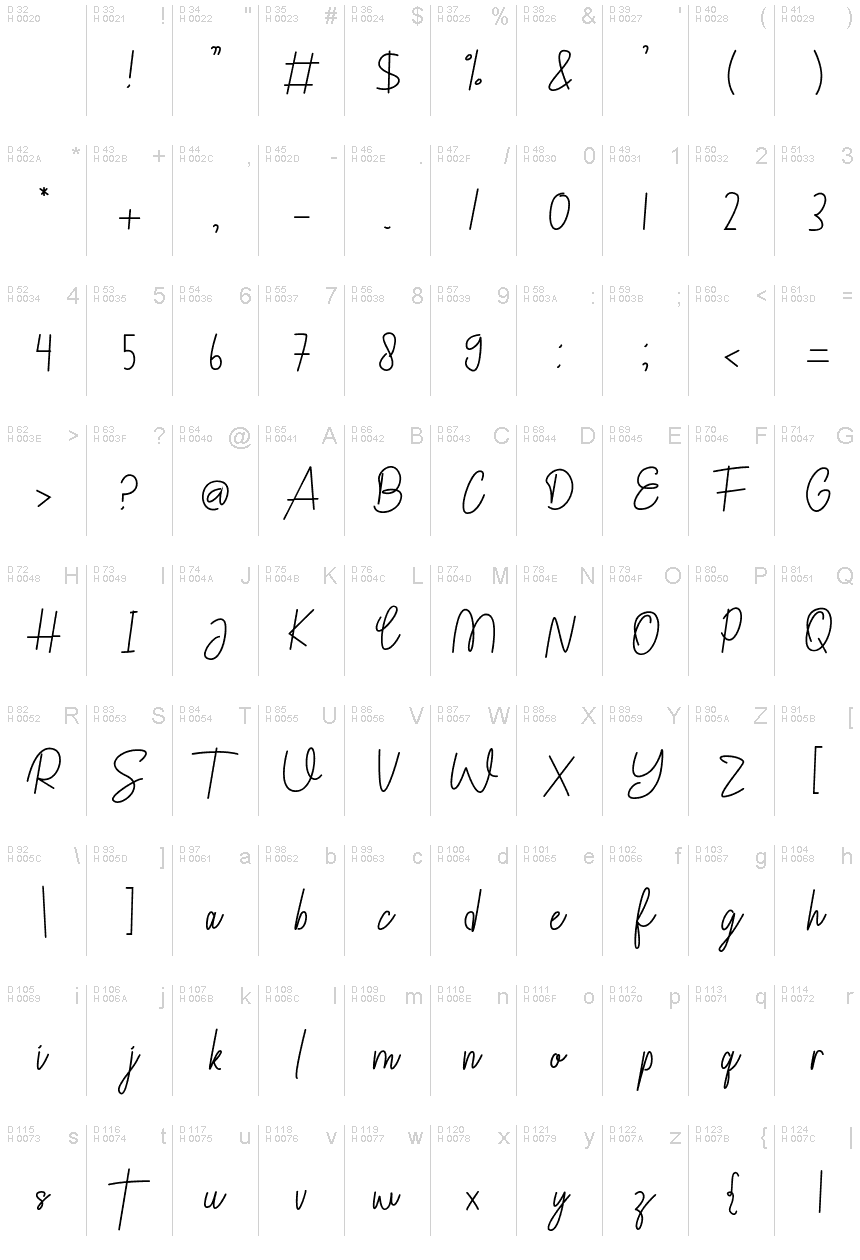
Destination
Destination is a captivating handwritten font by Share Font. With its elegant signature style and light weight, this font exudes sophistication and charm.
It is perfect for crafting beautiful wedding invitations, luxurious branding materials, or stylish social media posts. The fluid strokes and delicate curves of Destination will add a touch of elegance to any project. Whether you're designing a logo for a high-end fashion brand or creating personalized stationery, this font will effortlessly elevate your designs to new heights.
Let Destination be your go-to choice for all things chic and refined.